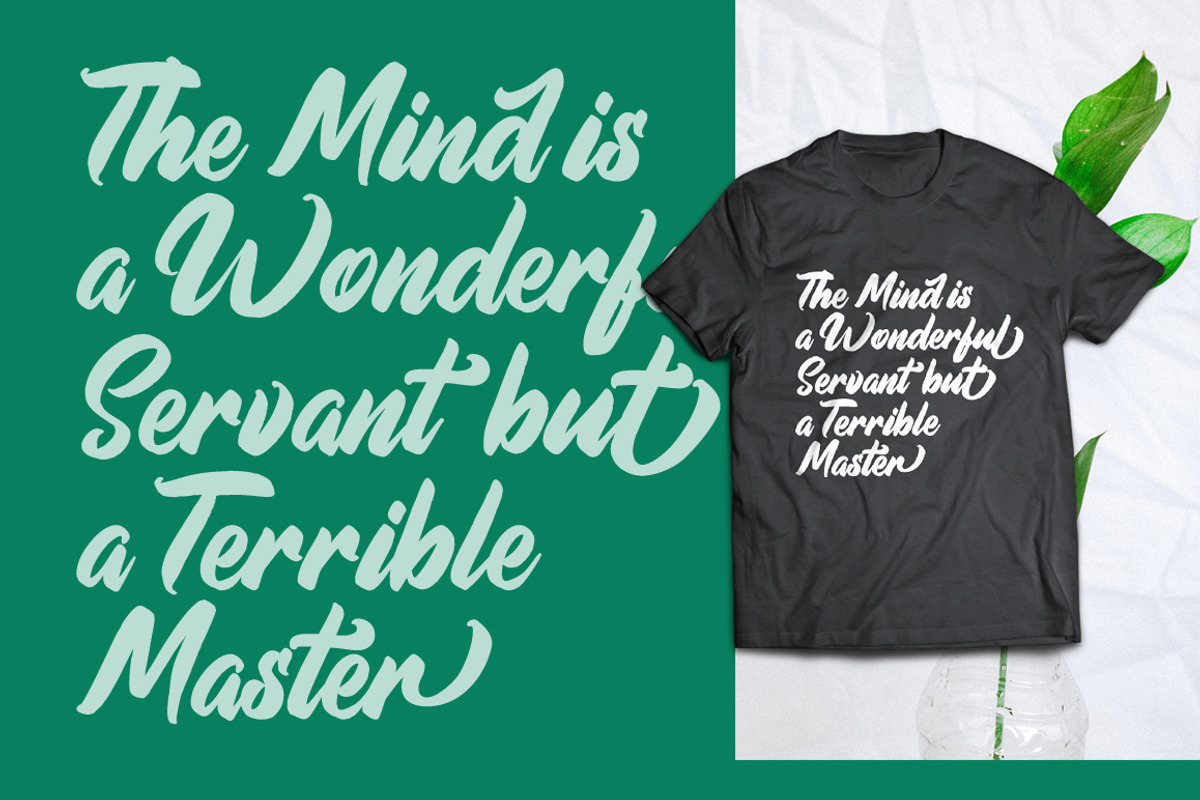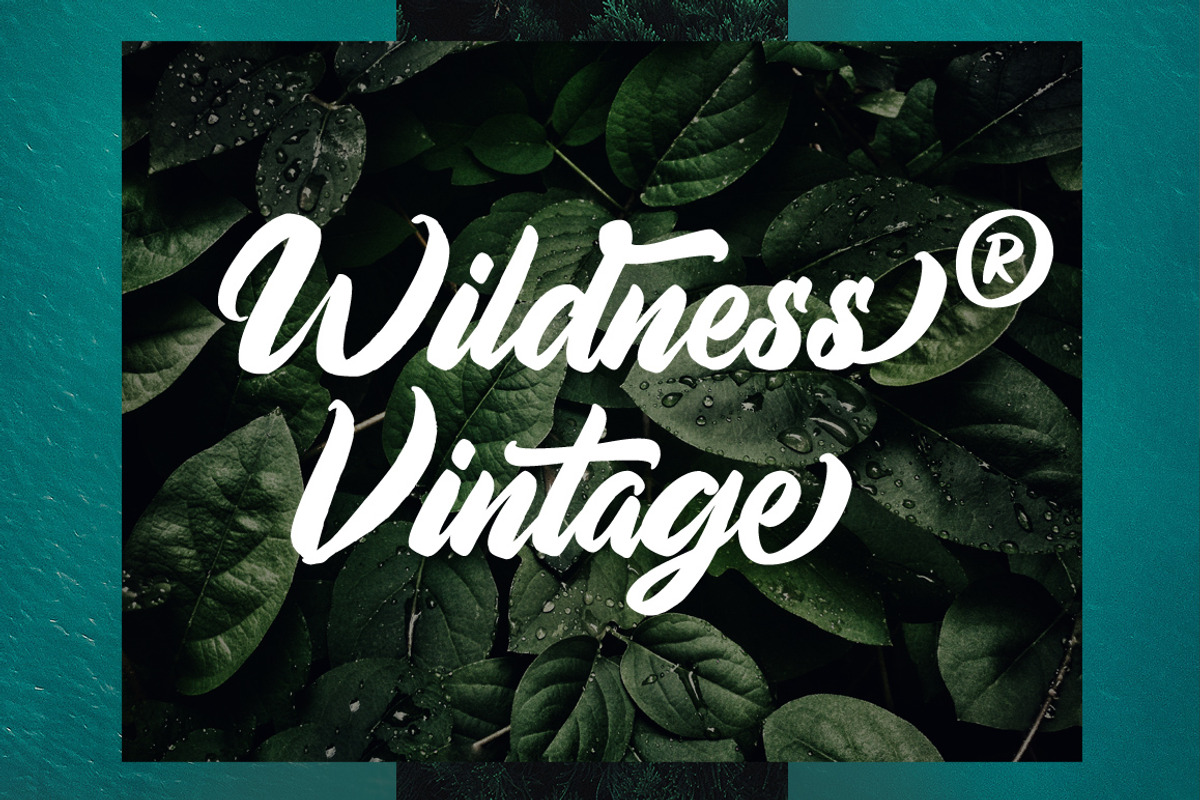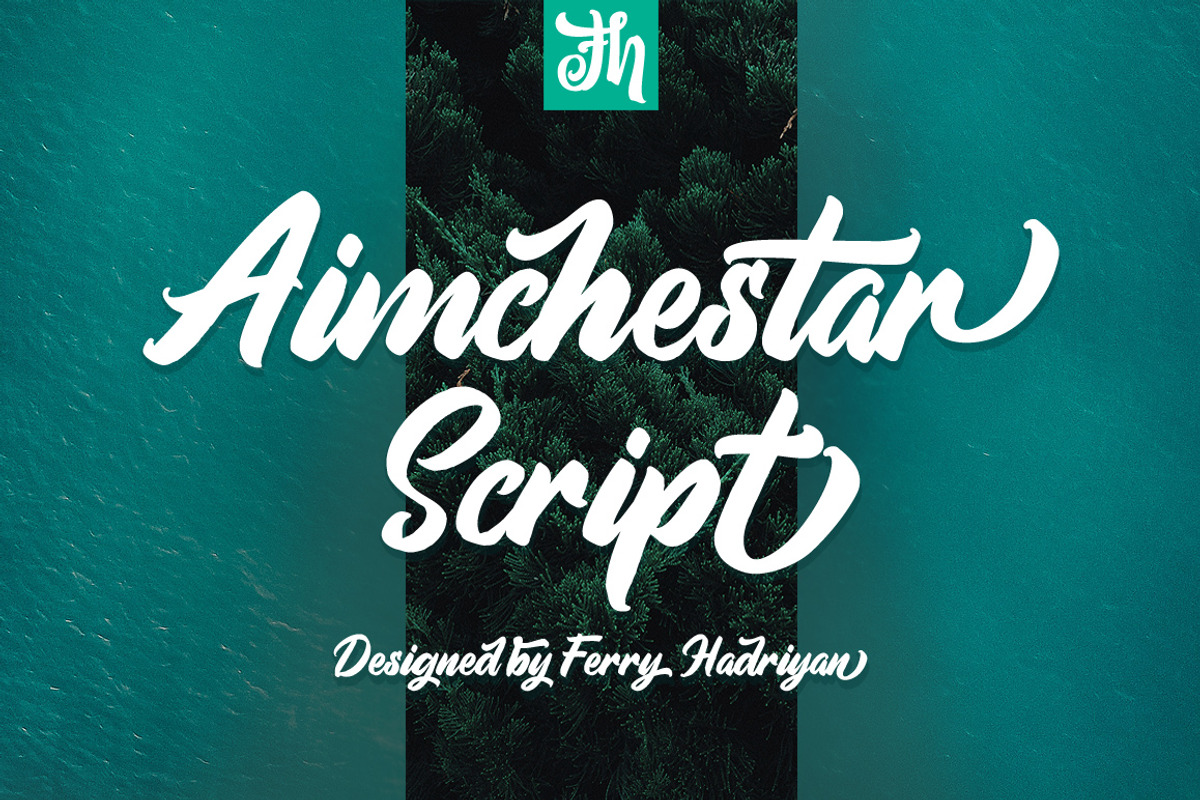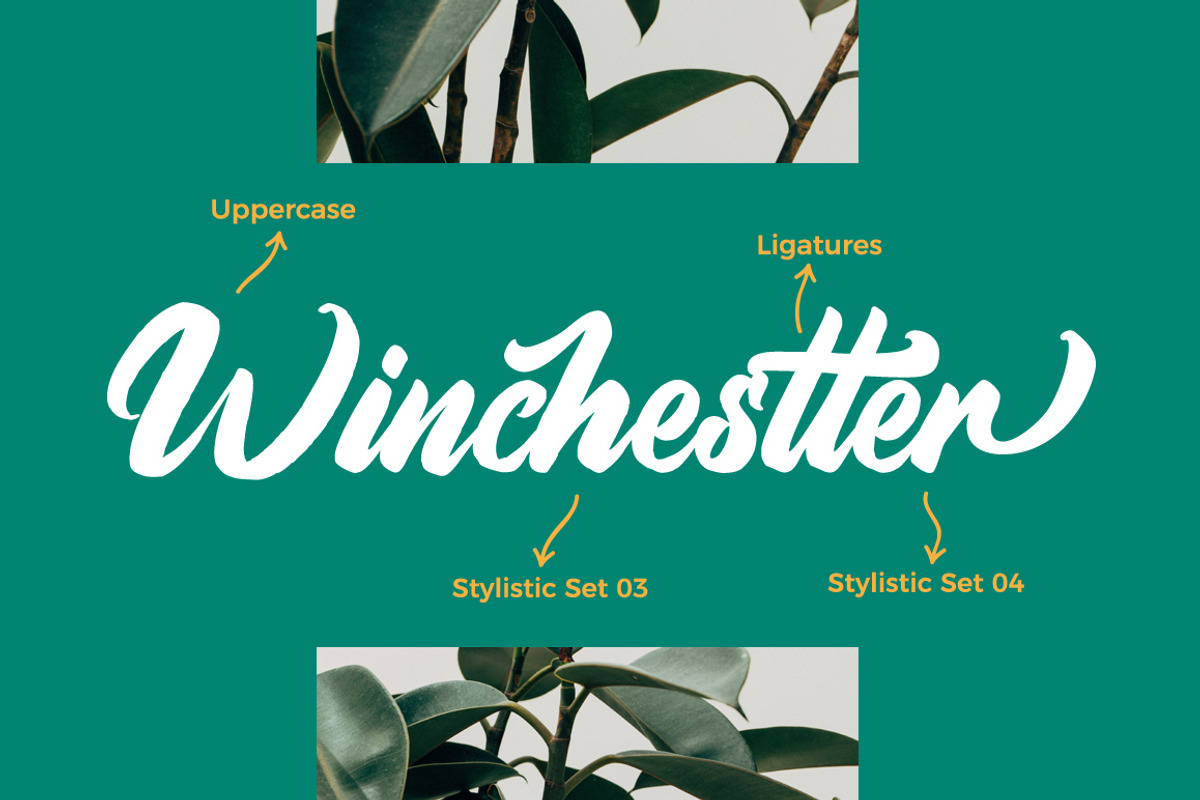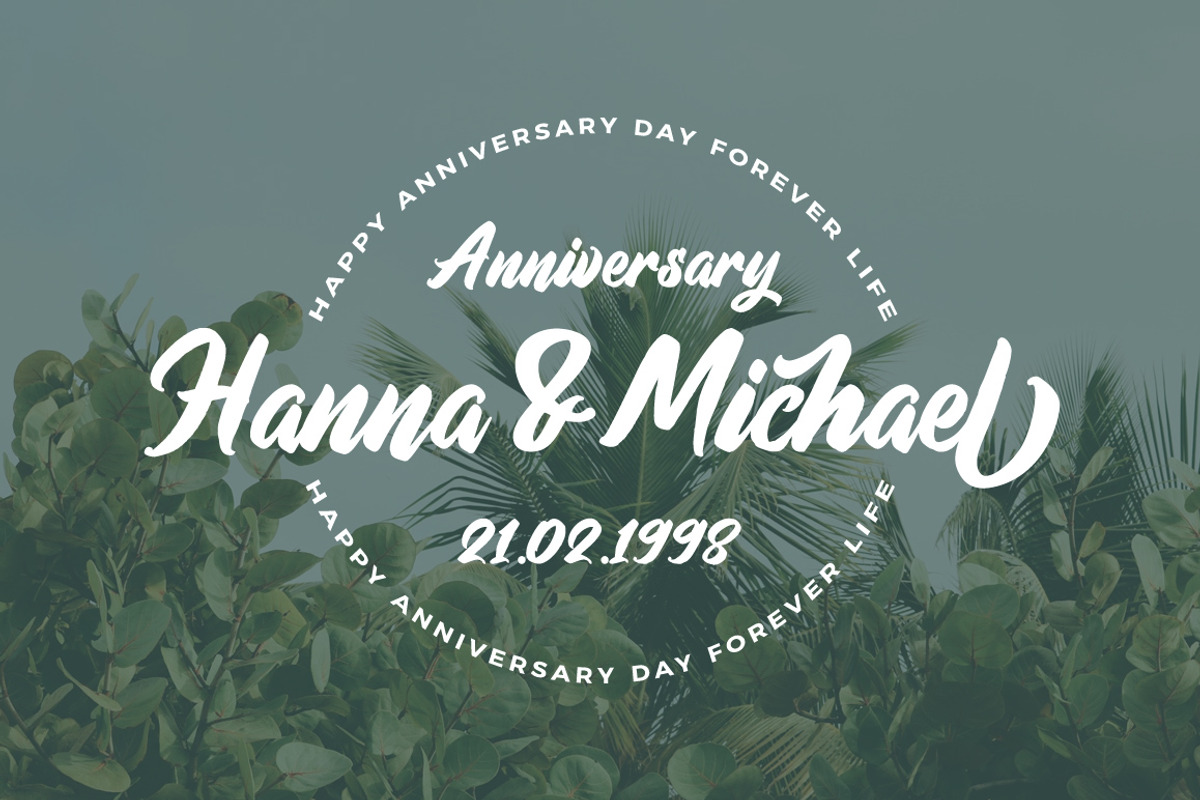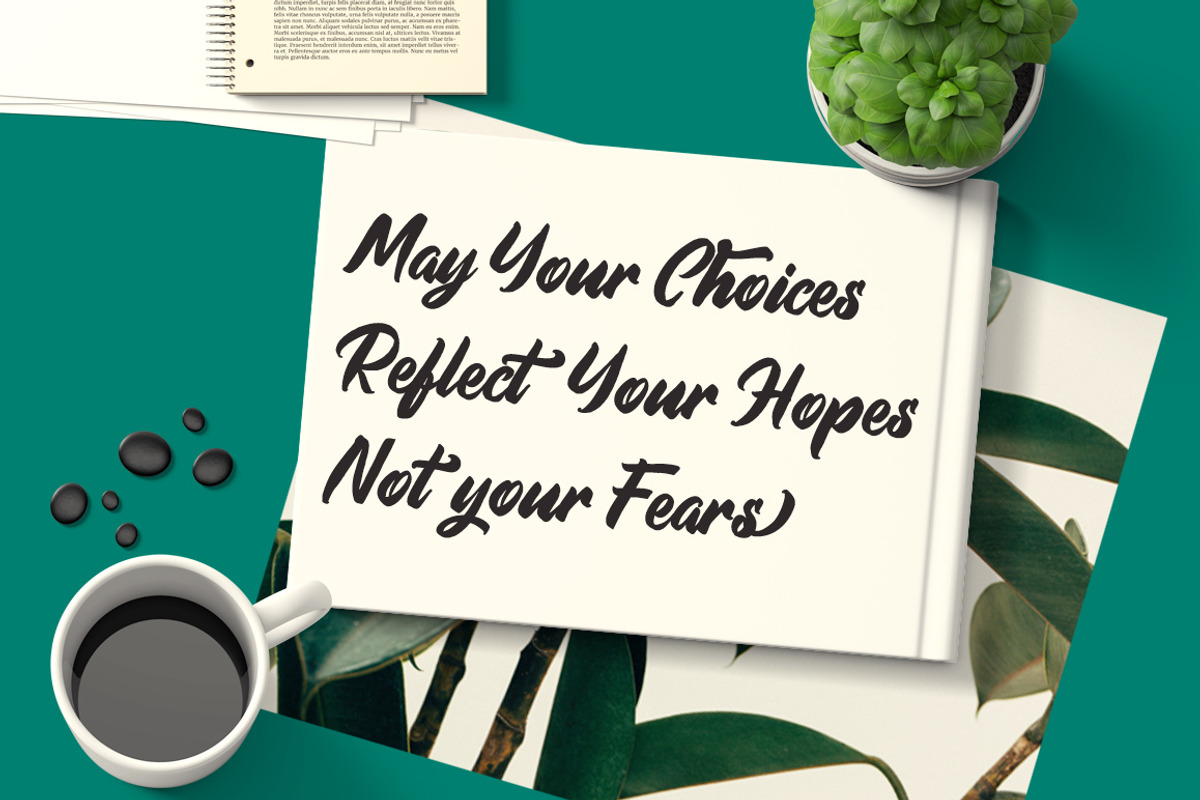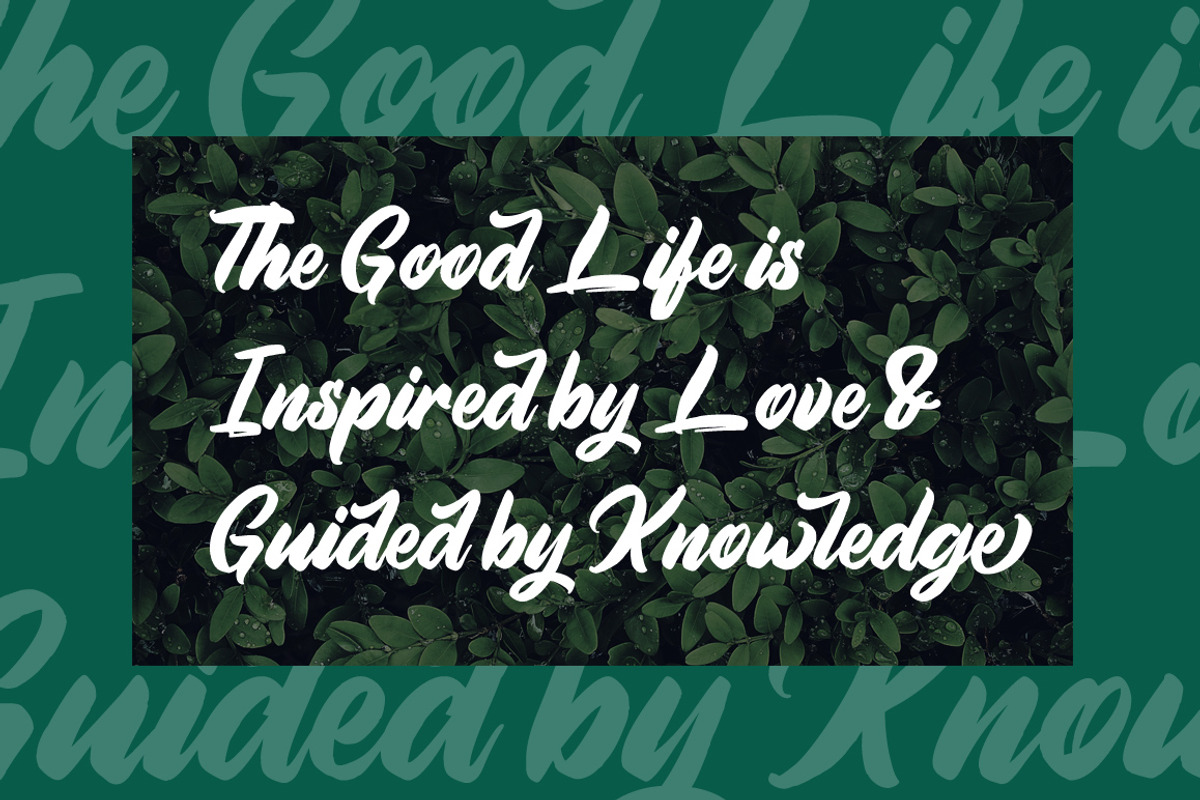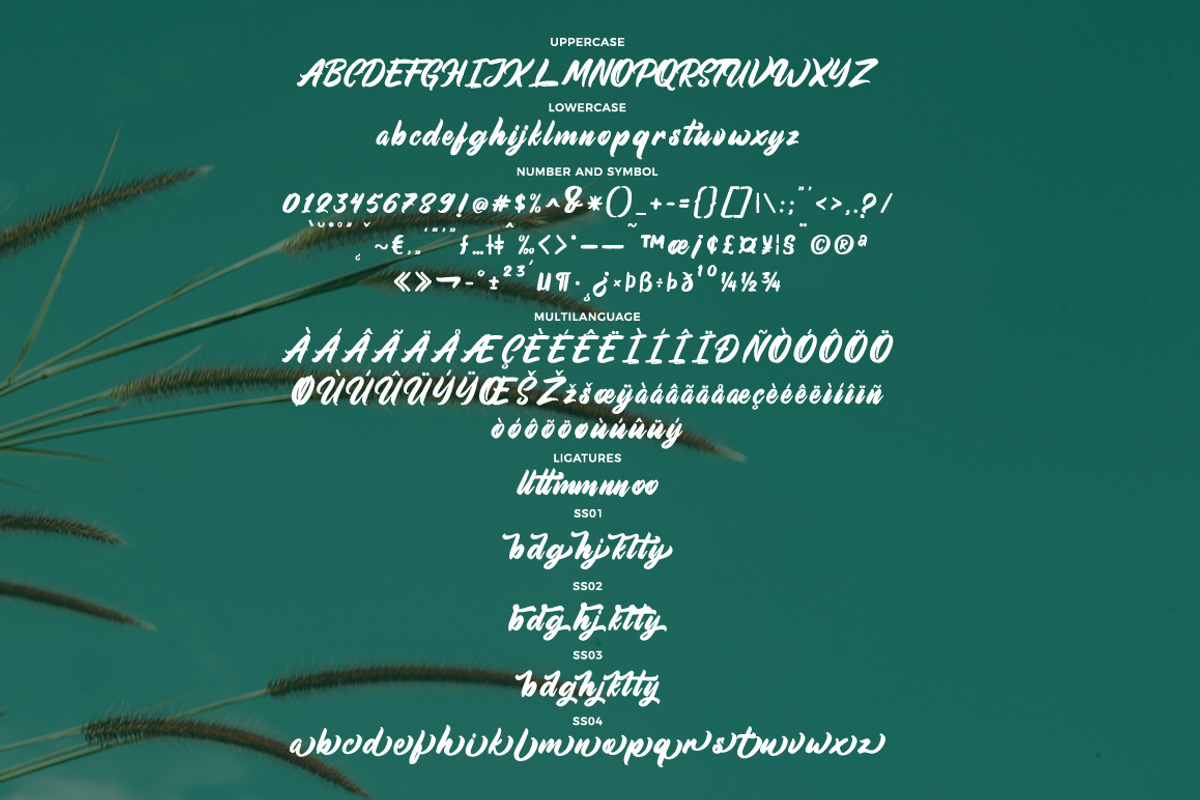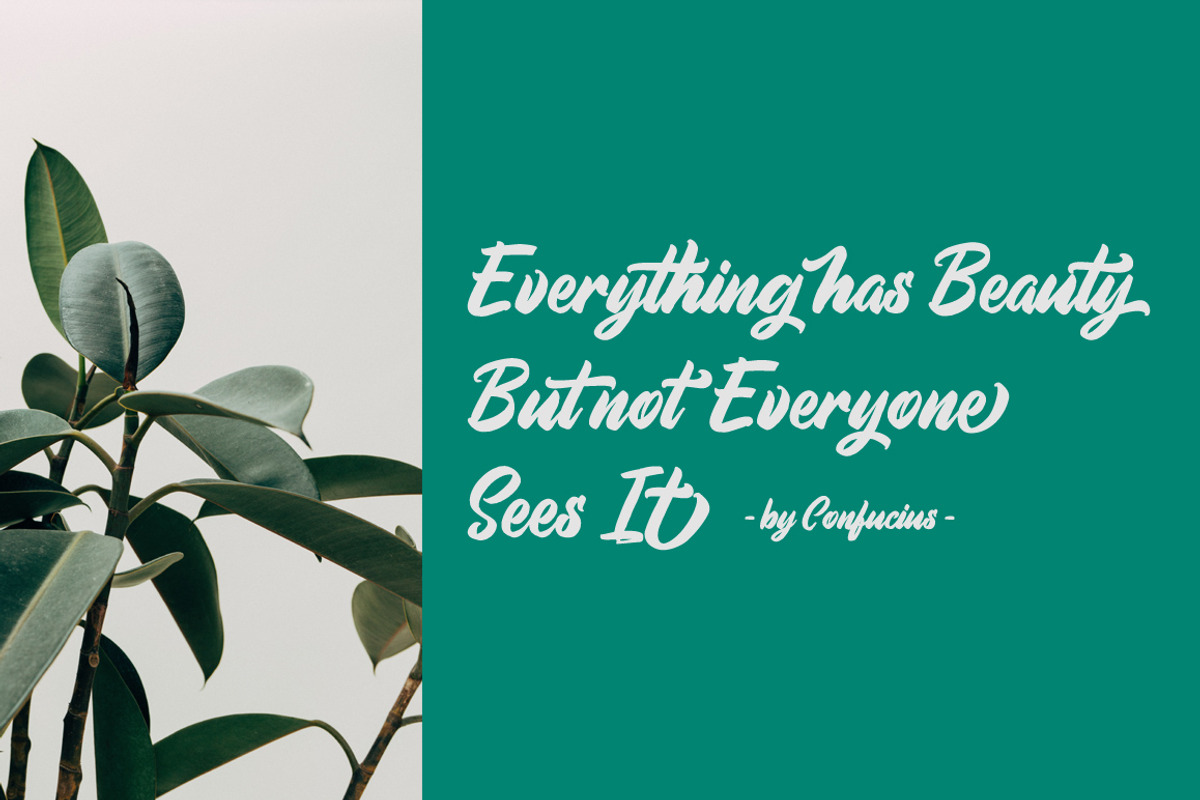
Aimchestar - Script Font
Aimchestar is Script Font with Handlettering Brush Style, with opentype feature include of the font. Suitable for design, element design, wedding, event, t-shirt, logo, badges, sticker, and awesome work, etc...
Unique style fonts